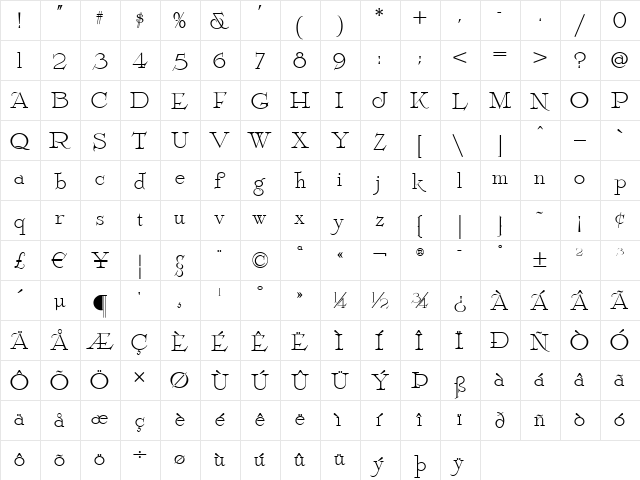
ErehwonRomanNF Medium Font Preview
ErehwonRomanNF Medium
Design Context for ErehwonRomanNF Typeface
ErehwonRomanNF takes a measured approach to typography — its balanced proportions and neutral character make it a reliable workhorse for both digital and print work.